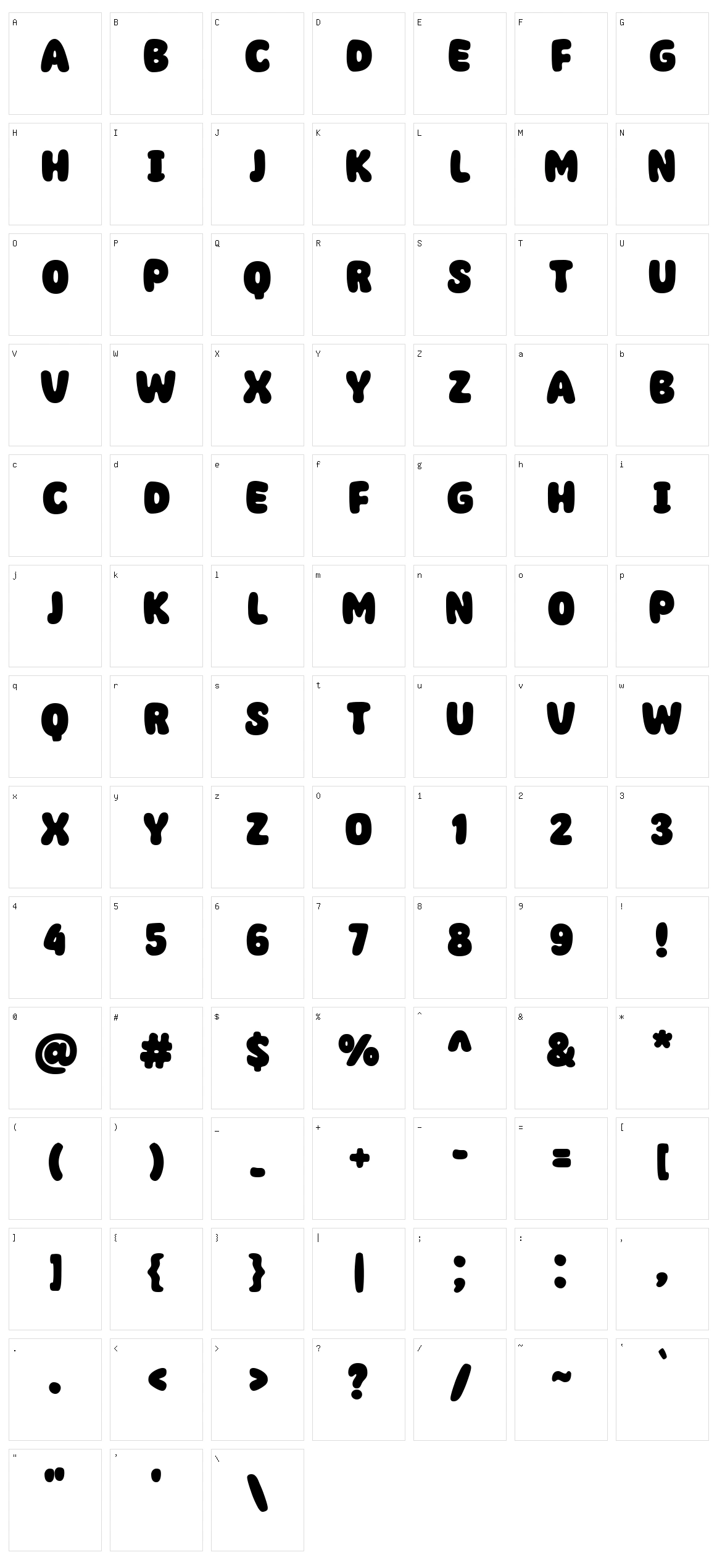
The free font Super Foods is carefully designed by fsuarez913, showcasing a thoughtful balance of creativity and usability and falls under the Cartoon font style. When you download the ZIP file, it contains only 34.91 KB of font files, making it lightweight and quick to download. Please review the license details below to understand permitted usage and distribution rights. If license information is not available, we recommend using this font for personal projects only or contacting the author directly for commercial usage permissions.